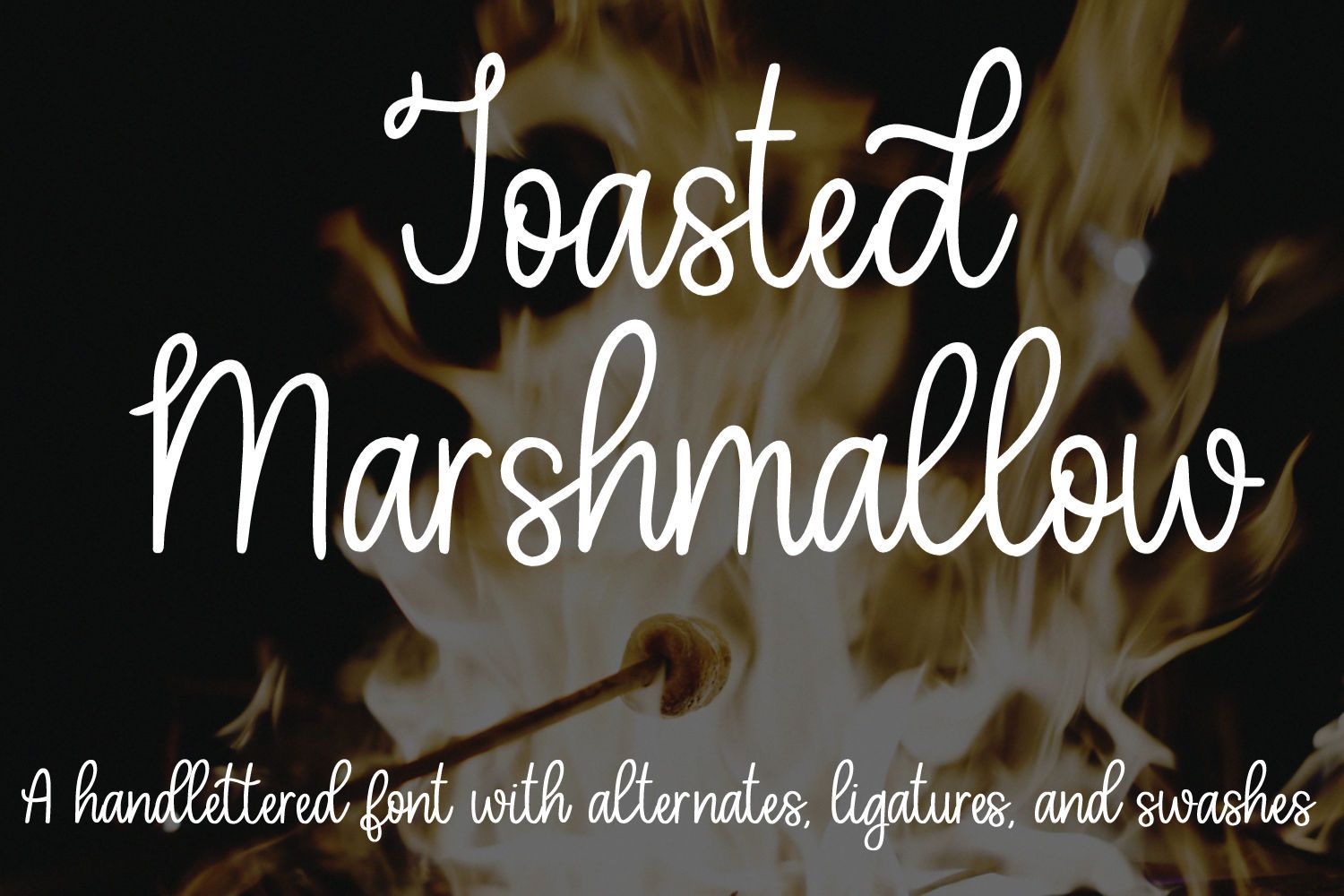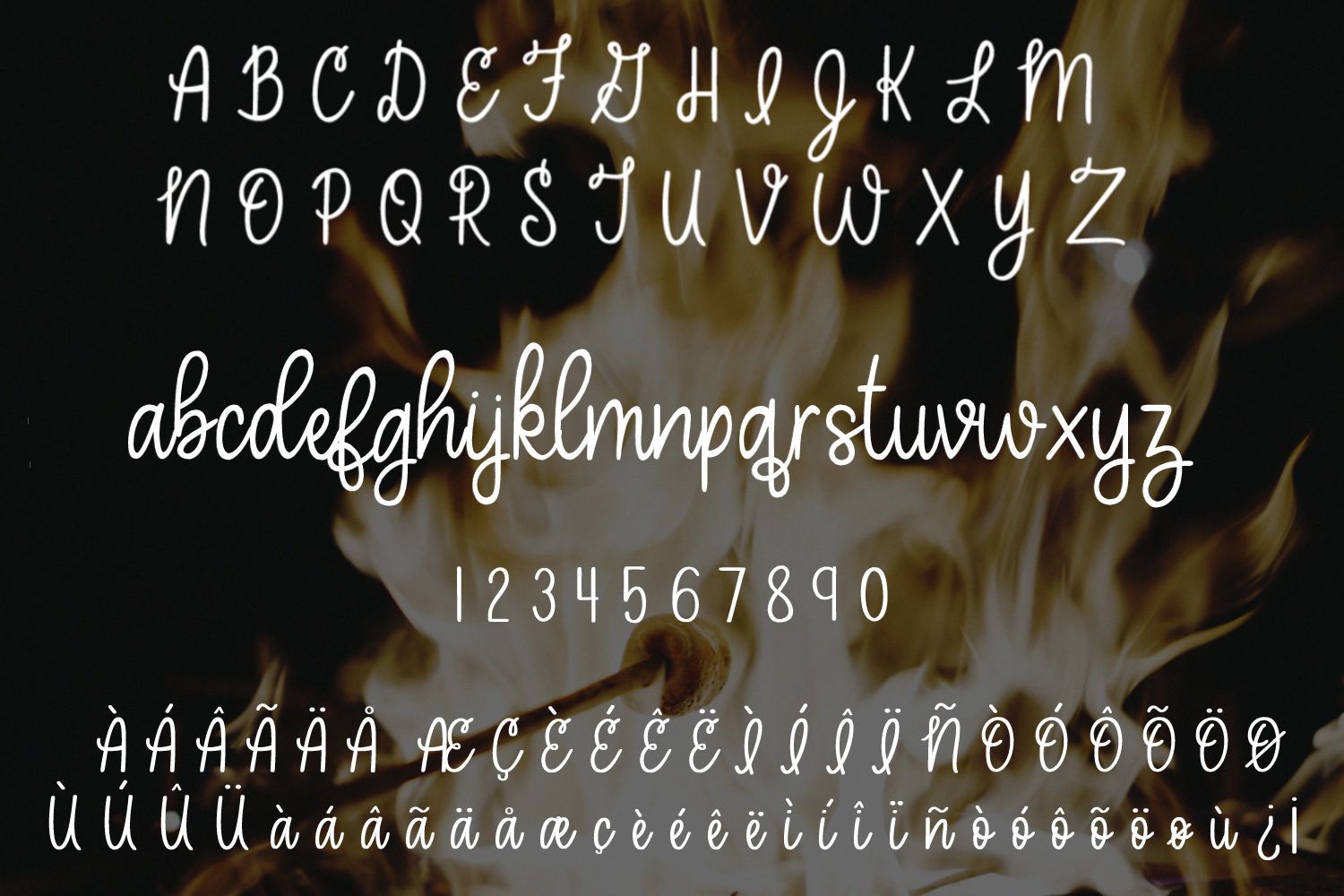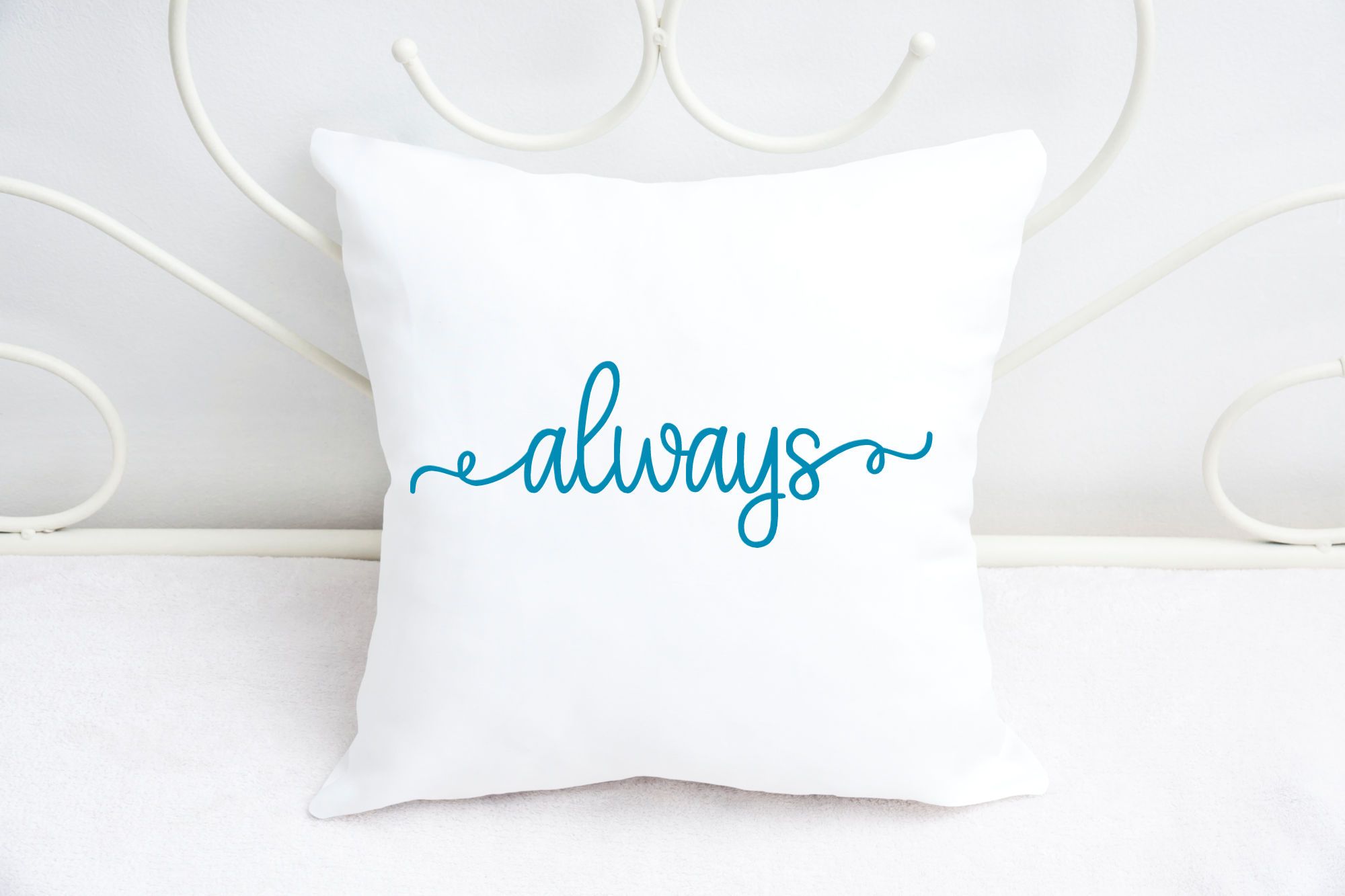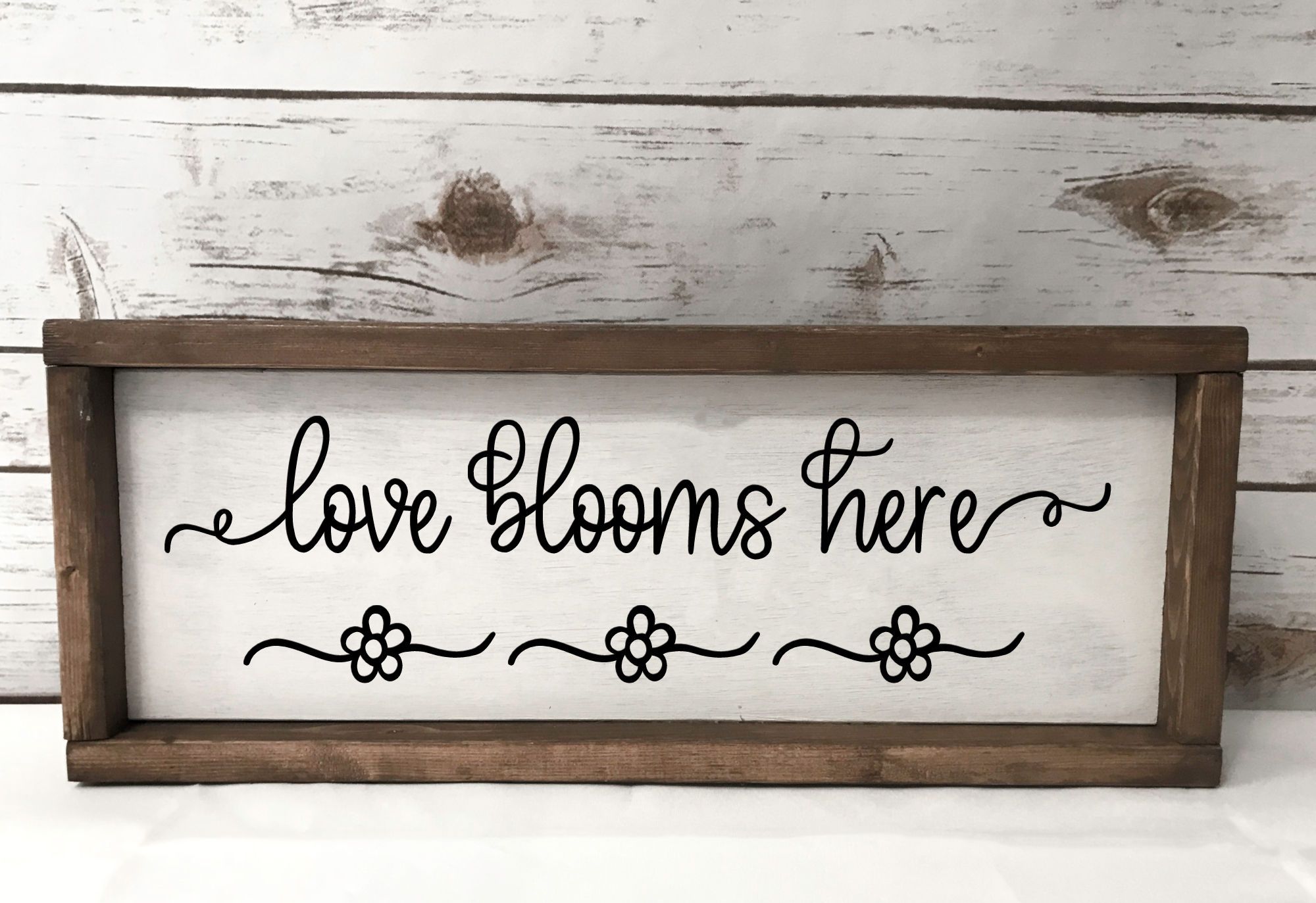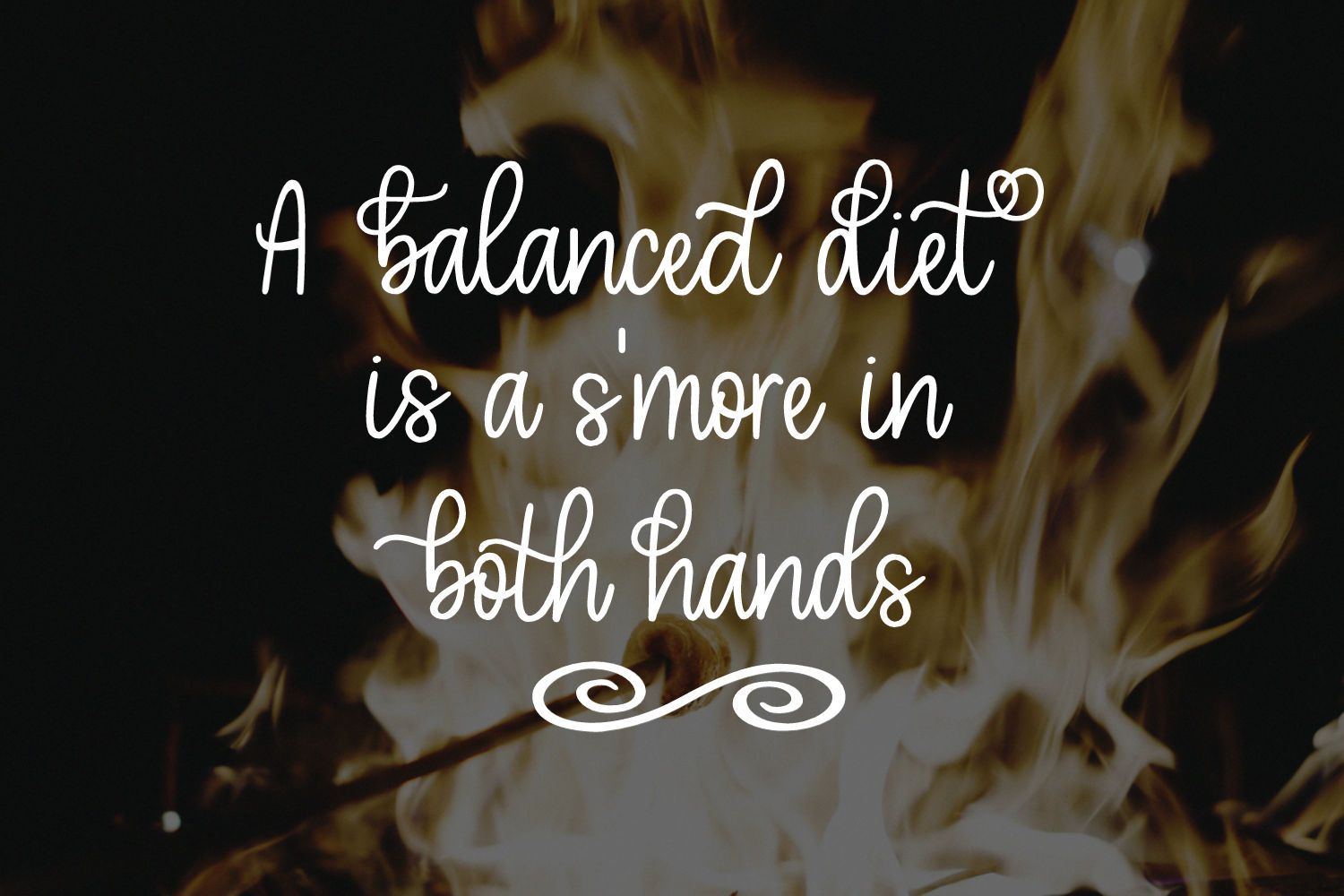
Toasted Marshmallow – A handlettered script font
About Toasted Marshmallow – A handlettered script font
Toasted Marshmallow is a hand lettered monoline script font made up of capital letters A-Z, lowercase letters a-z, alternates, ligatures, numbers 0-9, punctuation and swashes. Toasted Marshmallow is great for cards, invitations, scrapbooking, SVG design, and more! This font can be used for personal or commercial projects. File Type: otf